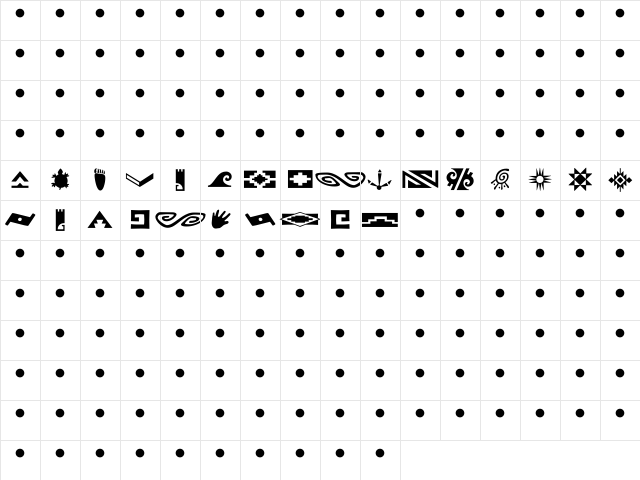
Southwest Ornaments MT Regular
Design Context for Southwest Ornaments MT
Southwest Ornaments MT is built around its visual character rather than neutral utility - its distinctive forms are designed to make an impression at display sizes.
Font Pairing: Pair with a clean neutral sans-serif for body copy to let Southwest Ornaments MT's character lead without overwhelming the composition.
Pro Tip: Use Southwest Ornaments MT exclusively at display sizes - it was designed to be seen, not read at length. Let a neutral companion handle body copy.